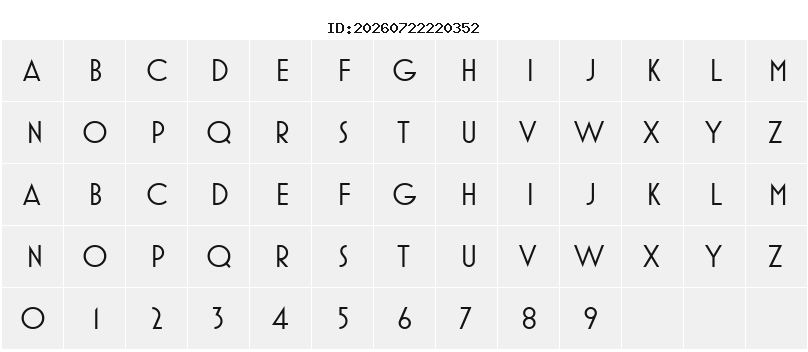
• Font Name: MostraOne
About MostraOne.ttf
MostraOne.ttf is a modern, elegant sans-serif font designed for ultimate readability and visual harmony. Perfect for branding, headlines, web design, and print materials.